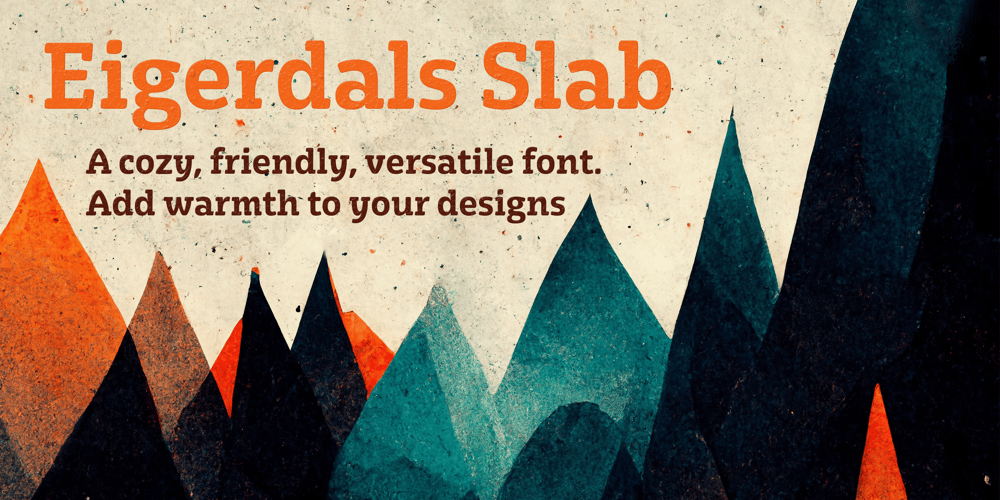
Eigerdals Slab Font Family was designed by Jeremy Dooley and published by insigne. Eigerdals Slab contains 54 styles and family package options. Introducing Eigerdals Slab – the ultimate font for creating a cozy and inviting atmosphere in your designs. This slab-serif font family captures the essence of the mountains of Norway and the streets of Stockholm, making it the perfect choice for design projects that need a touch of Hygge. With its top-heavy characters, Eigerdals Slab has a more approachable and warm feel that sets it apart from other font choices. Plus, its tall x-height, brushed and smooth look makes it both readable and stylish.But that’s not all, Eigerdals Slab comes loaded with practical OpenType features like ligatures, unicase alternates, and a set of upright italic swash alternates, that can be fully utilized in software like Quark and Adobe suite. Not only that, it also includes support for a wide range of languages.Eigerdals Slab is an extension of the Eigerdals family, and its distinctive look pairs perfectly with other text faces. Whether you’re using it for display work or longer blocks of text, Eigerdals Slab is the perfect font for adding warmth and friendliness to your designs. Don’t wait any longer, try Eigerdals Slab today and elevate your work to the next level!